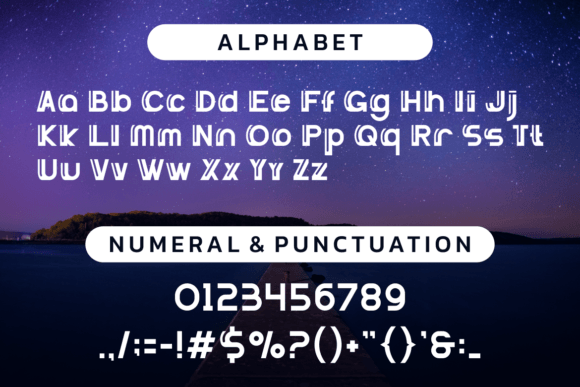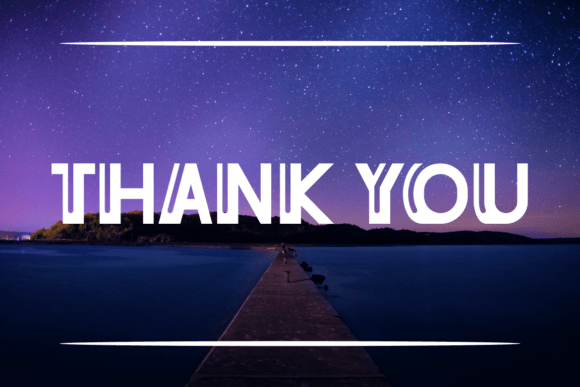
Discover the Unique Charm of Eviora Font: Elevate Your Designs with this Cool Display Font
In the vast world of typography, finding the perfect font that captures the essence of your creative project can be a daunting task. However, if you’re on the lookout for a cool and interesting display font that can enhance any creation, look no further than Eviora Font. This stunning font is designed to make a statement, offering a unique blend of style and versatility that can elevate your designs to new heights.
What Makes Eviora Font Stand Out?
Eviora Font is not just another addition to the plethora of fonts available; it’s a game-changer. Its distinctive design ensures that it stands out in any project, whether you’re working on a website, a logo, a poster, or any other visual material. The font’s cool and interesting aesthetic makes it perfect for designers and crafters looking to add a touch of uniqueness to their work.
One of the key benefits of Eviora Font is its incredible versatility. Regardless of the topic or theme of your project, this font seamlessly adapts, ensuring that your design looks cohesive and visually appealing. Whether you’re aiming for a modern, edgy look or something more classic and elegant, Eviora Font can help you achieve your design goals.
Enhance Your Creations with Eviora
Eviora Font has the potential to transform your designs, making them more engaging and captivating. Its unique characters and stylish appearance can breathe new life into any project, drawing the viewer’s attention and leaving a lasting impression. Whether you’re a professional designer or a crafty hobbyist, incorporating Eviora Font into your work can significantly enhance its appeal.
For designers and crafters, finding fonts that are both functional and aesthetically pleasing is crucial. Eviora Font ticks all the right boxes, offering a perfect blend of form and function. Its ease of use and adaptability make it an excellent choice for a wide range of projects, from digital content to print materials.
Why Choose Eviora Font?
So, why should you choose Eviora Font for your next project? Here are a few compelling reasons:
- Unique Design: Eviora Font boasts a unique design that will set your project apart from the rest.
- Versatility: Its adaptability makes it suitable for various projects and themes.
- Engaging: The font’s stylish appearance is sure to capture the viewer’s attention.
- Easy to Use: Eviora Font is user-friendly, making it accessible for designers and crafters of all skill levels.
In conclusion, Eviora Font is a cool and interesting display font that deserves a spot in your font library. Its unique design, versatility, and engaging aesthetic make it an invaluable asset for any designer or crafter looking to elevate their creations. Whether you’re working on a personal project or a professional assignment, Eviora Font can help you achieve your design objectives, making it a wonderful addition to your typographic arsenal.